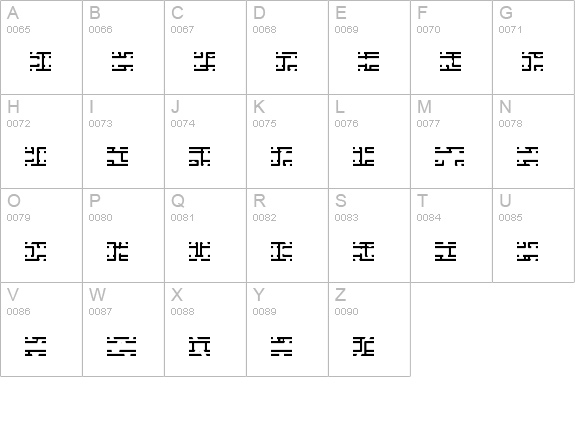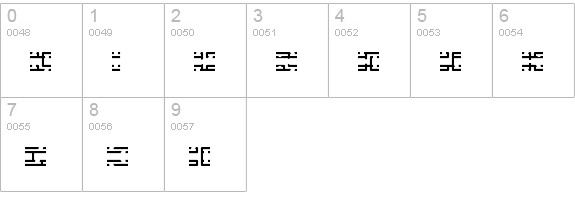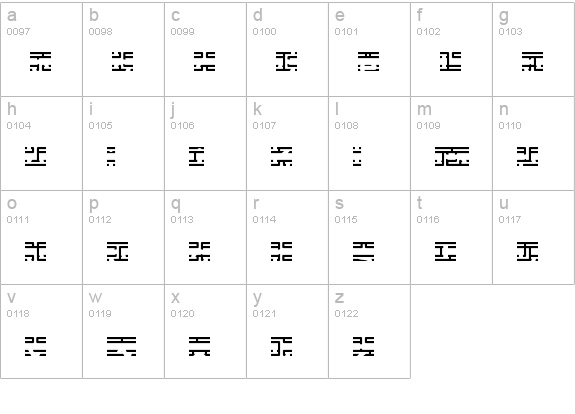
Entangled Layer B BRK font is a captivating and intricate typeface that exudes a sense of complexity and depth. Its unique design features intertwining lines and curves that create a visually stunning effect, making it ideal for adding a touch of mystique to your projects. This font is perfect for creating eye-catching headlines, logos, and other design elements that demand attention. What sets Entangled Layer B BRK font apart is not just its striking appearance, but also the fact that it is available for free download at FontsMarket.com. This means you can easily access this one-of-a-kind font to enhance your creative endeavors without any cost. Whether you're a designer looking to add a bold statement to your work or a hobbyist seeking to experiment with new fonts, Entangled Layer B BRK font offers endless possibilities for your projects. Download it today and unleash your creativity with this captivating typeface.